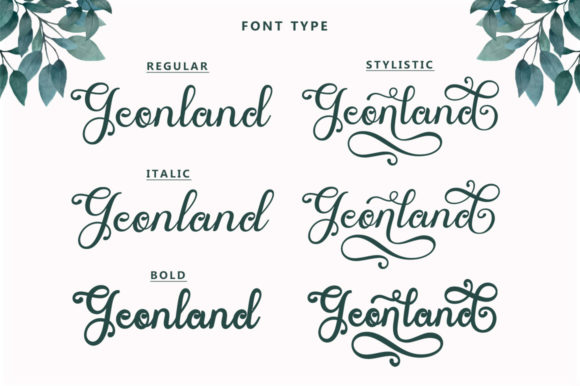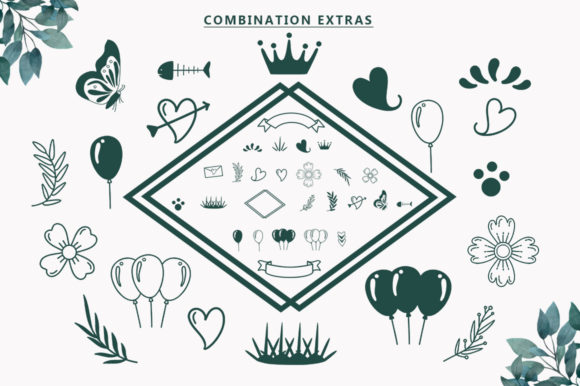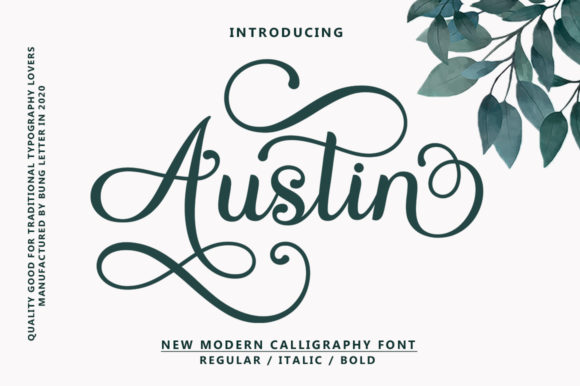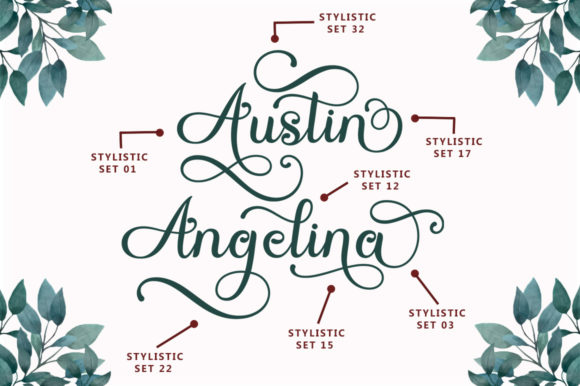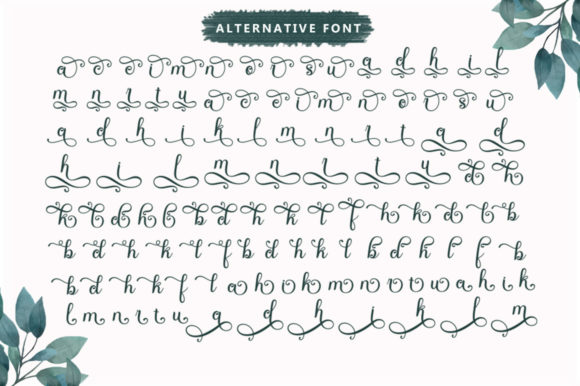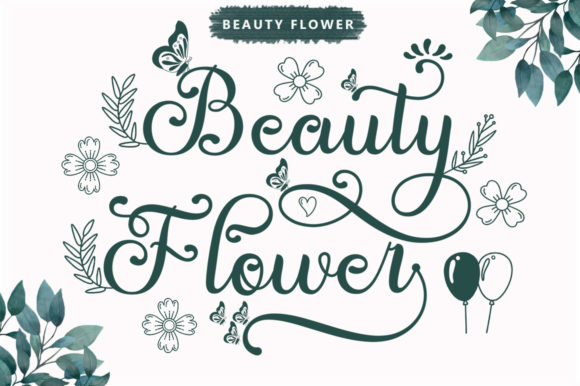
Austin Font: Elevate Your Craft Projects with Elegant Modern Calligraphy
Austin Script is a beautiful modern calligraphy script font that comes with stunning swashes. With this font, you can add an elegant touch to all your craft projects! Whether you’re a designer, crafter, or DIY enthusiast, Austin Font is the perfect addition to your creative arsenal. In this article, we’ll dive into the world of Austin Font, exploring its features, benefits, and uses.
What is Austin Font?
Austin Font is a modern calligraphy script font designed to bring a touch of elegance and sophistication to your craft projects. Its beautiful, flowing lines and stunning swashes make it perfect for creating eye-catching titles, headings, and text. With Austin Font, you can add a professional finish to your projects, making them stand out from the crowd.
Key Features of Austin Font
- Modern Calligraphy Script: Austin Font boasts a beautiful, modern calligraphy script style that’s perfect for creating elegant text.
- Stunning Swashes: The font comes with stunning swashes that add a touch of sophistication to your text.
- Elegant Touch: Austin Font is designed to add an elegant touch to your craft projects, making them perfect for special occasions and events.
- Versatile: The font is versatile and can be used for a wide range of craft projects, from paper crafting to digital design.
Benefits of Using Austin Font
So, why should you choose Austin Font for your craft projects? Here are just a few benefits of using this beautiful font:
- Easy to Use: Austin Font is easy to use, even for those with limited design experience.
- Customizable: The font is highly customizable, allowing you to adjust the size, color, and style to suit your project.
- Time-Saving: With Austin Font, you can create professional-looking text in minutes, saving you time and effort.
- Unique Designs: The font’s stunning swashes and elegant style ensure that your projects will stand out from the crowd.
Uses of Austin Font
Austin Font is perfect for a wide range of craft projects, including:
- Paper Crafting: Use Austin Font to create beautiful card designs, scrapbook pages, and journal entries.
- Digital Design: The font is perfect for creating stunning digital graphics, such as social media posts, blog headers, and website text.
- DIY Projects: Add a touch of elegance to your DIY projects, such as handmade signs, banners, and decorations.
- Special Occasions: Use Austin Font to create beautiful text for special occasions, such as weddings, birthdays, and holidays.
Tips for Using Austin Font
Here are a few tips for getting the most out of Austin Font:
- Experiment with Swashes: Don’t be afraid to experiment with the font’s stunning swashes to create unique and eye-catching text.
- Pair with Other Fonts: Pair Austin Font with other fonts to create stunning contrast and visual interest.
- Adjust Size and Color: Adjust the size and color of the font to suit your project and add visual impact.
Austin Font is a beautiful modern calligraphy script font that’s perfect for adding an elegant touch to your craft projects. With its stunning swashes, elegant style, and versatility, this font is a must-have for designers, crafters, and DIY enthusiasts. Whether you’re creating paper crafts, digital graphics, or DIY projects, Austin Font is the perfect choice. So why wait? Download Austin Font today and start elevating your craft projects to the next level!